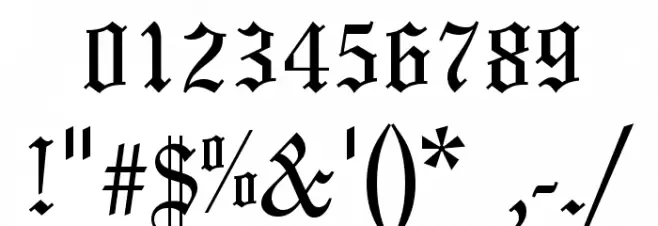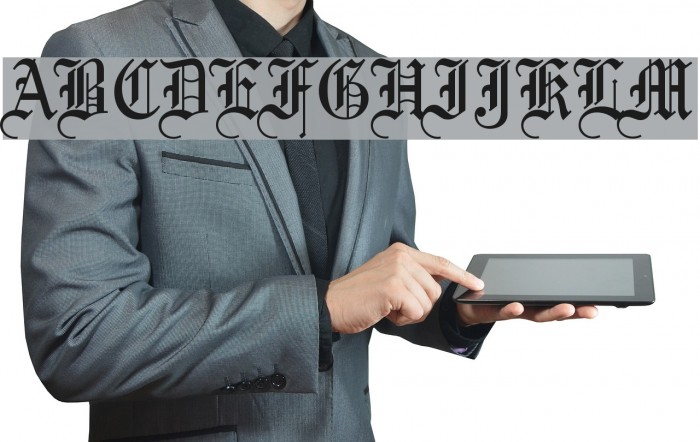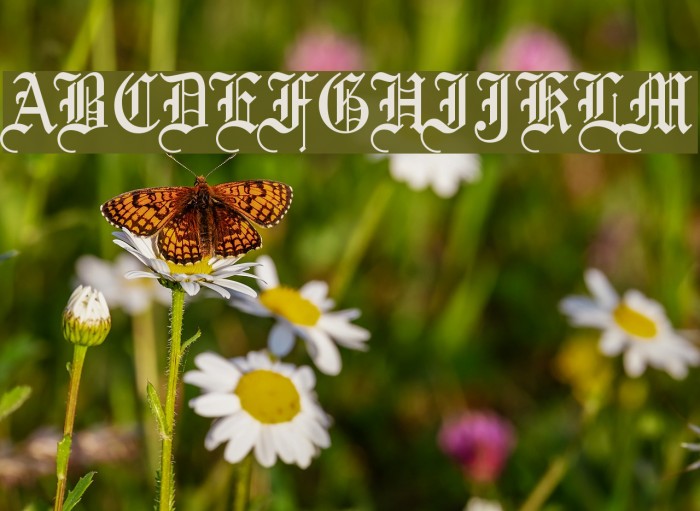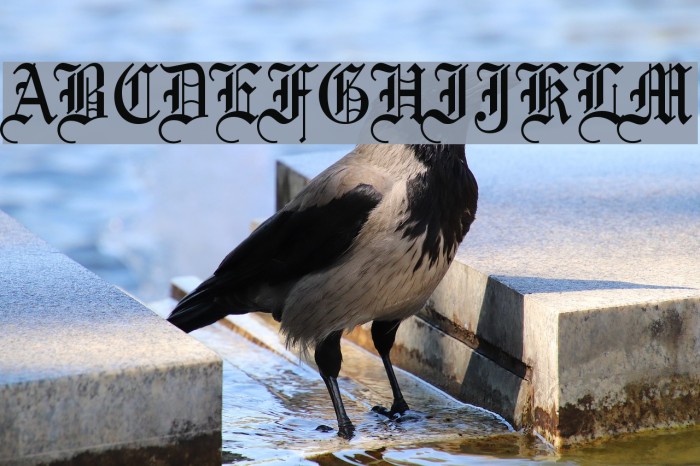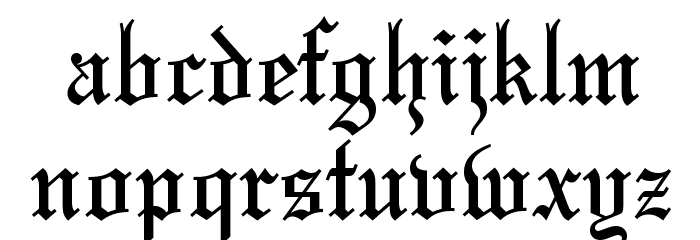
Bliss Normal Font
Bliss Normal Description
This font exudes a classic and ornate style, reminiscent of traditional calligraphy with a modern twist. The uppercase letters are adorned with intricate swirls and flourishes, giving them a regal and sophisticated appearance. The lowercase letters maintain a similar ornate style, with consistent stroke widths and elegant curves. The numerals are bold and clear, matching the decorative theme of the alphabet. Special characters are equally detailed, ensuring a cohesive look across all glyphs. This font is perfect for projects that require a touch of elegance and historical flair.
| Overall Style | Classic |
| Use Case | Headlines, Logos, Decorative text |
| Proposed Projects | Ideal for wedding invitations, historical documents, certificates, and branding that requires a classic touch. |